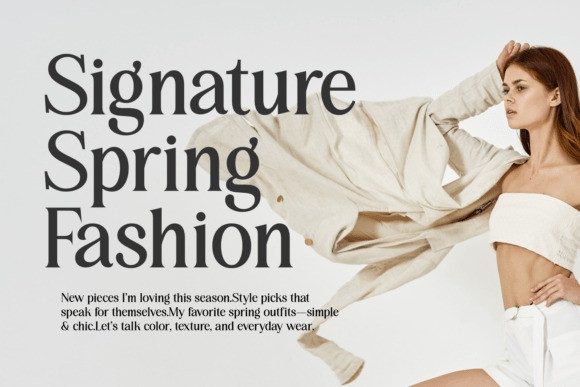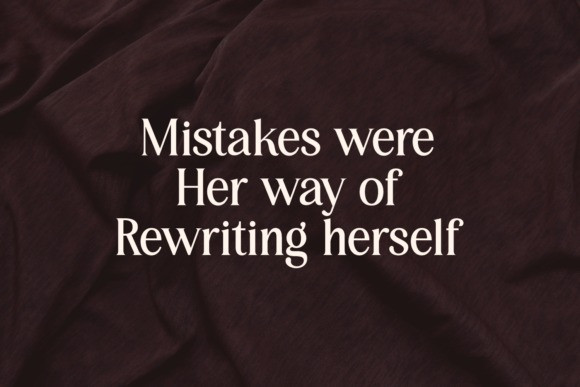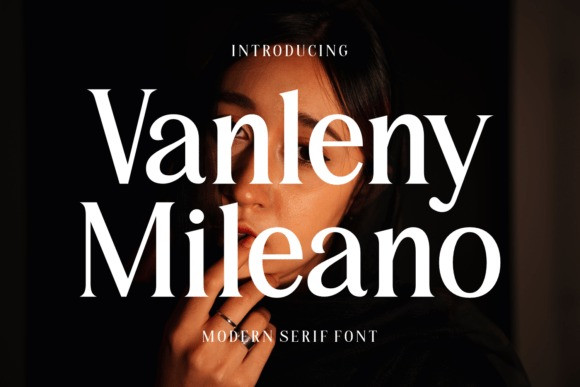
Vanleny Mileano Font
Vanleny Mileano Font, a modern serif font. The moody, high-contrast lighting of the background photo complements the font’s classic and luxurious character, making it ideal for branding, headlines, and editorial design.